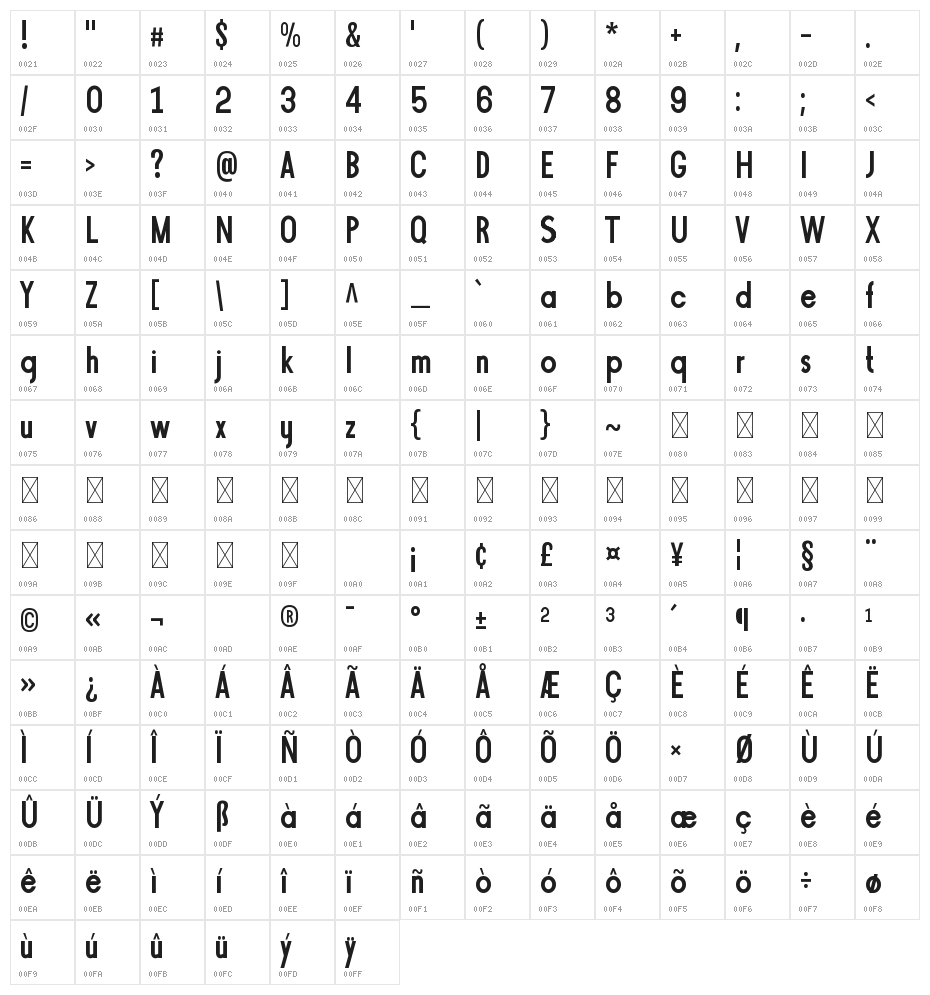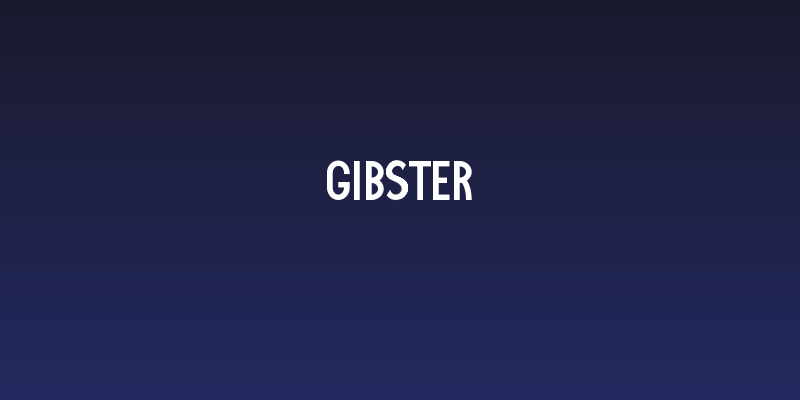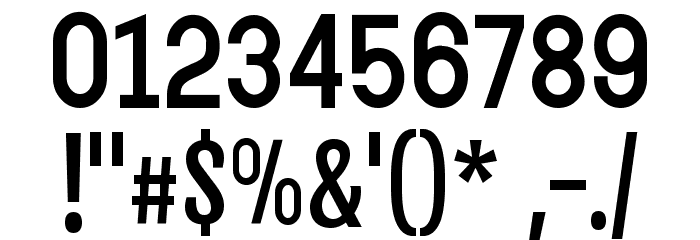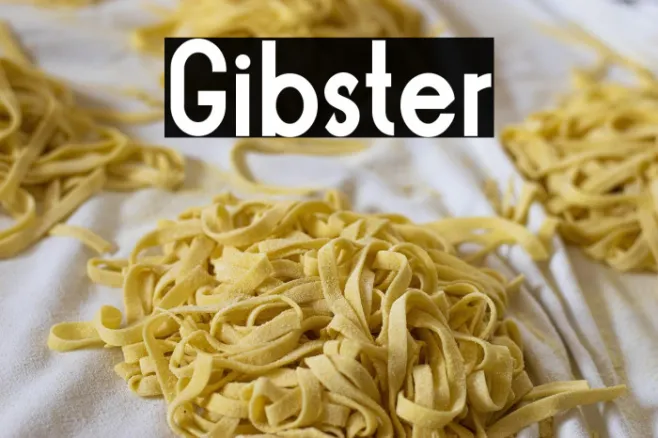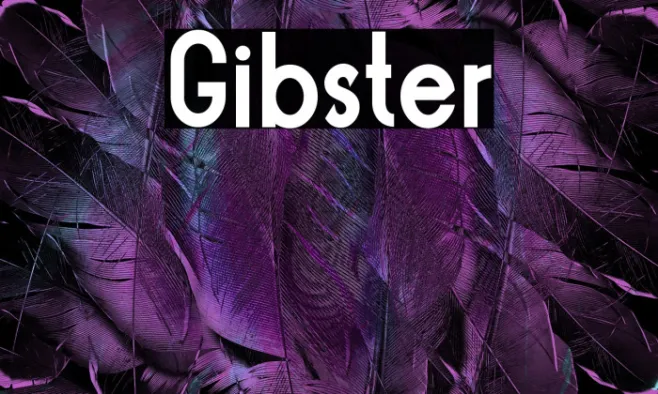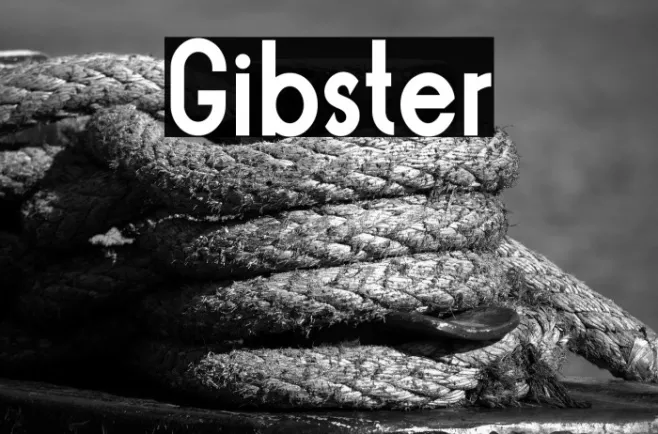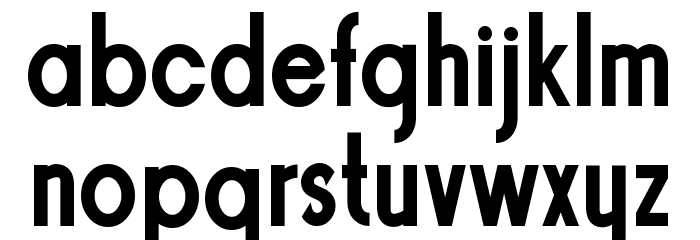
Gibster Font
Gibster Description
This font features a bold and modern sans-serif style with clean lines and a strong presence. The uppercase letters are uniform and geometric, while the lowercase letters maintain a consistent height and width, ensuring readability. The numerals are straightforward and align well with the overall design, making them suitable for various applications. Special characters are distinct and complement the font's bold nature, providing versatility in usage. The font's simplicity and clarity make it ideal for both digital and print media, offering a contemporary look that is both professional and approachable.
| Proposed Projects | Ideal for branding, advertising, headlines, and digital media projects. |